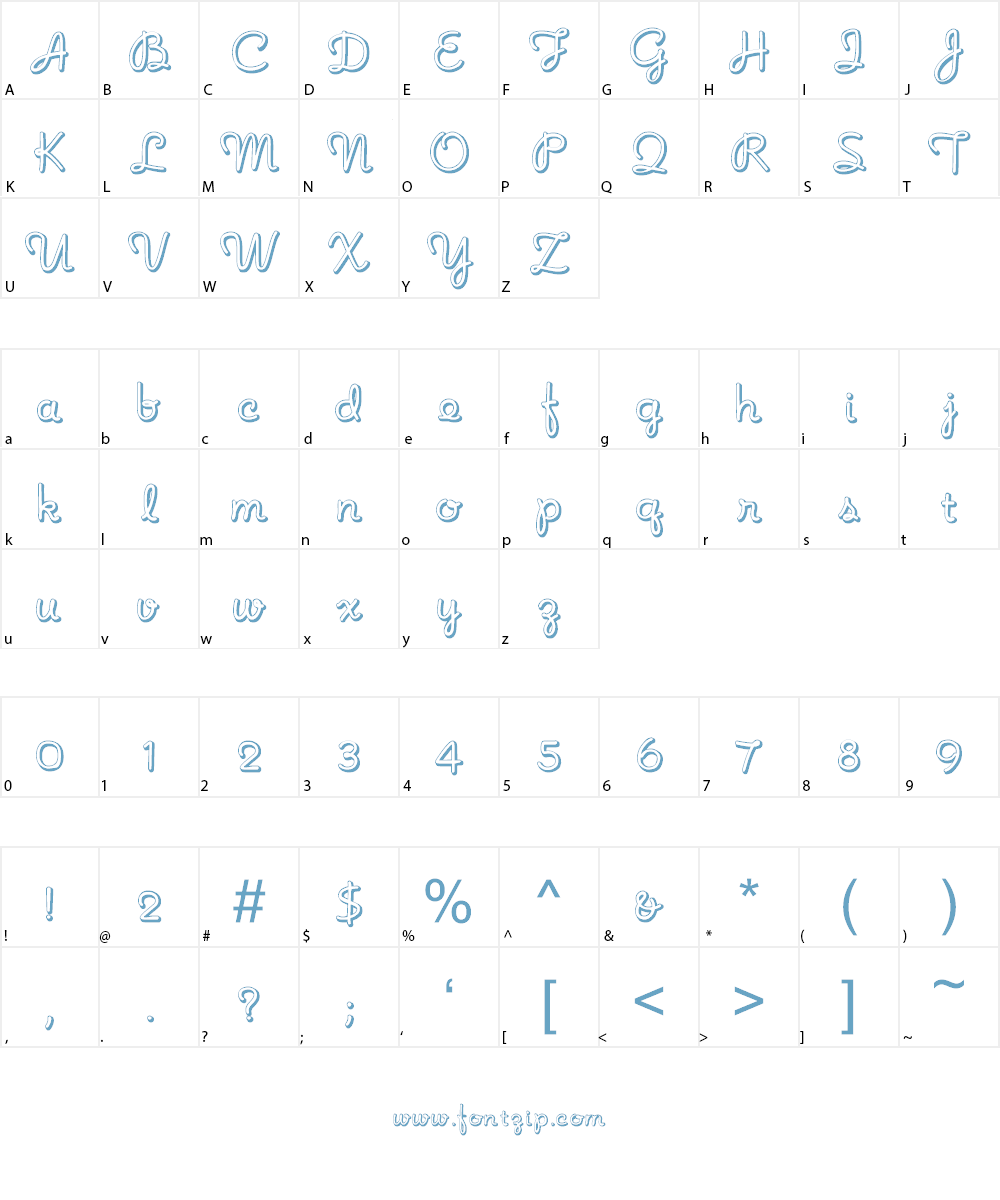
Noodle Shaded is my shaded remix of Noodle Script (you might wanna download that font, too). This font has only minimal punctuation. Use it at point sizes of 24 or above.